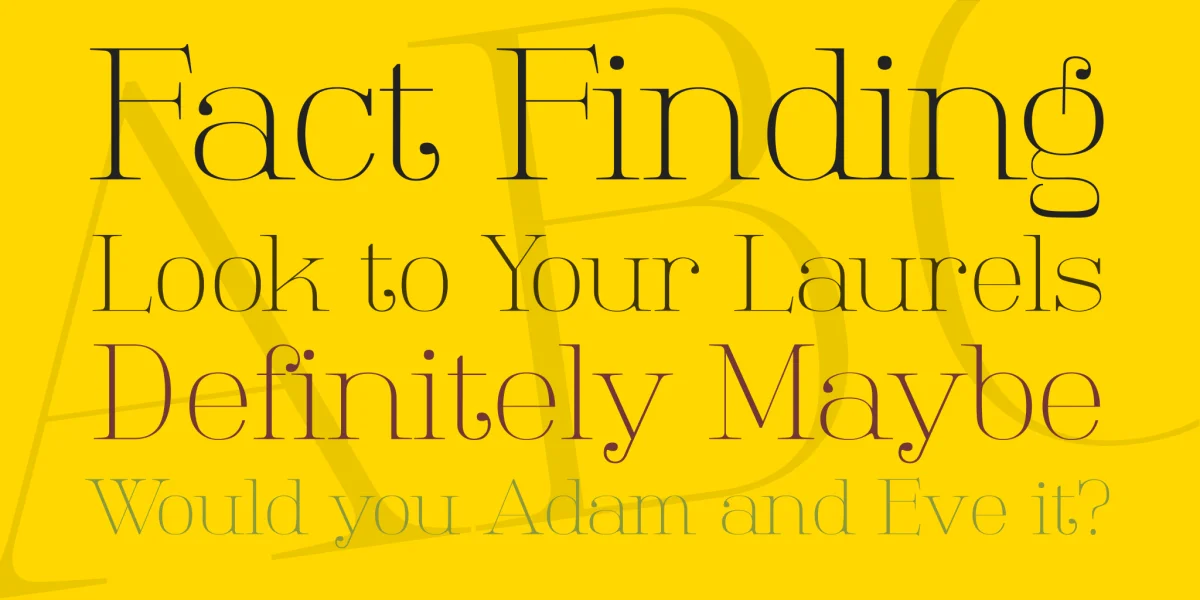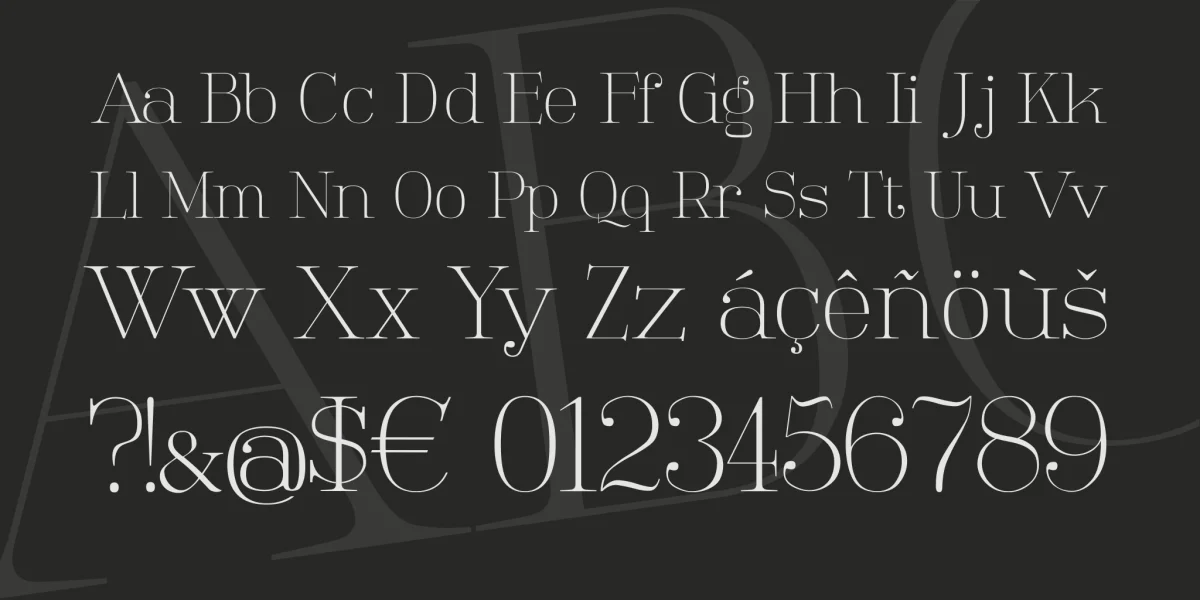
Please do not ask me how I came up with the idea to draw this font, because I do not know myself. It is not created from a template, and no commission, but simply a font that came to mind as me. Very tenderly, for large font sizes. But what I can tell, is where the name comes from. Do you know ReCapcha? These stupid puzzles that you must solve, for example, Download to arrive at an approach aimed at preventing that these downloads will be picked by a computer. Well, so I had downloaded something, pictures, pretty pictures for me;-) old guy, and for that I just had to solve this Capchas. And it occurred to me that can make this quite interesting and unique font names, as I have noted this. Tartlers End is now the first, the Scapaver, Kanymp generale silestsi modern acriban cliff, Vollan Barnett, Turty bard, Fingli plan, Grievot 209 Inkopins cluster and Thentons respect because I've yet to meinmer list. Let's see when I use the ... In any case, I claim this name ever for me ...